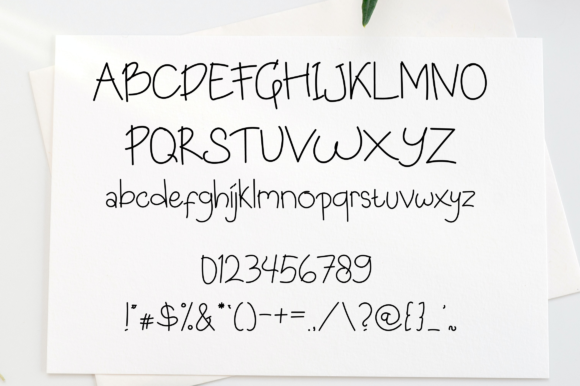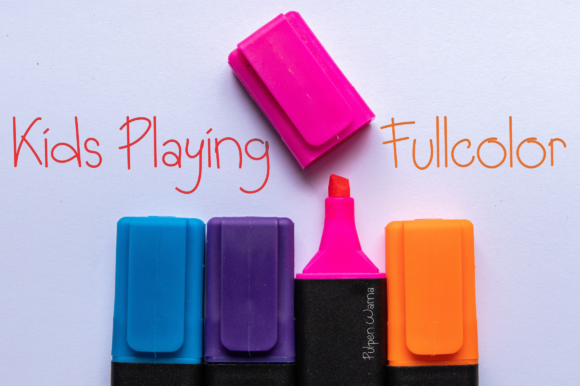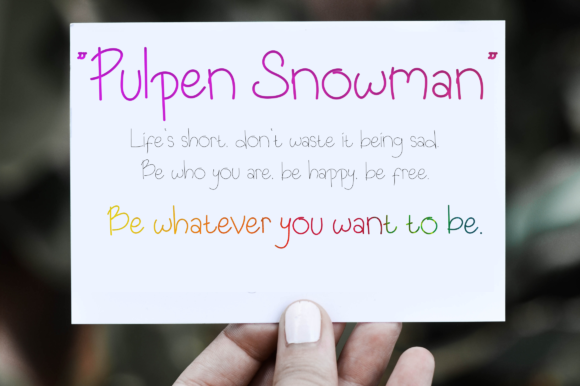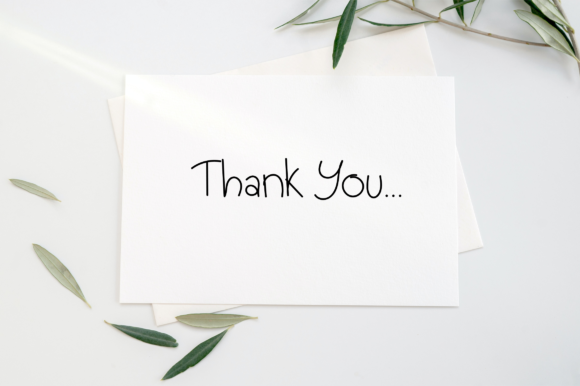
Introduction to Pulpen Snowman Font
“Pulpen Snowman” is made with joy and childish feeling.
Pulpen Snowman has a fun and entertaining impression and are very suitable for branding small children’s products, children’s posters, children’s educational games, comics, and others Pulpen Snowman has a simple and thin script font.
Key Features of Pulpen Snowman Font